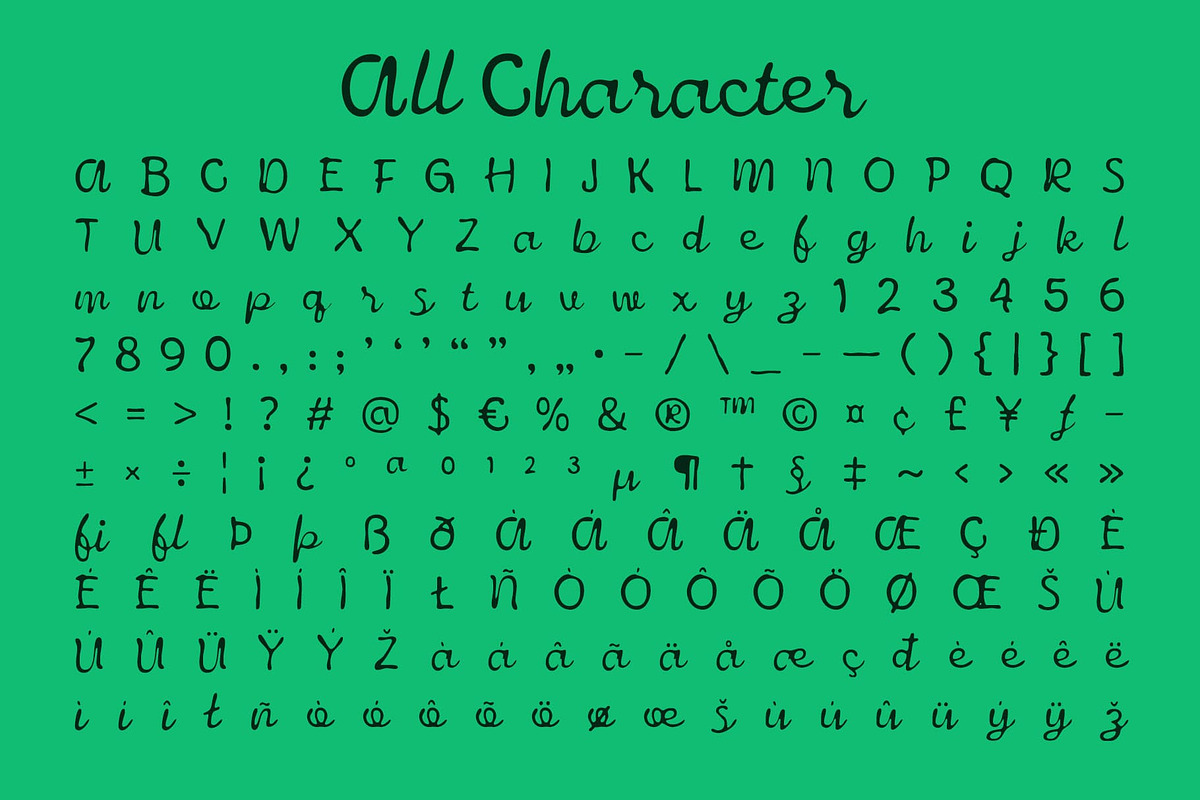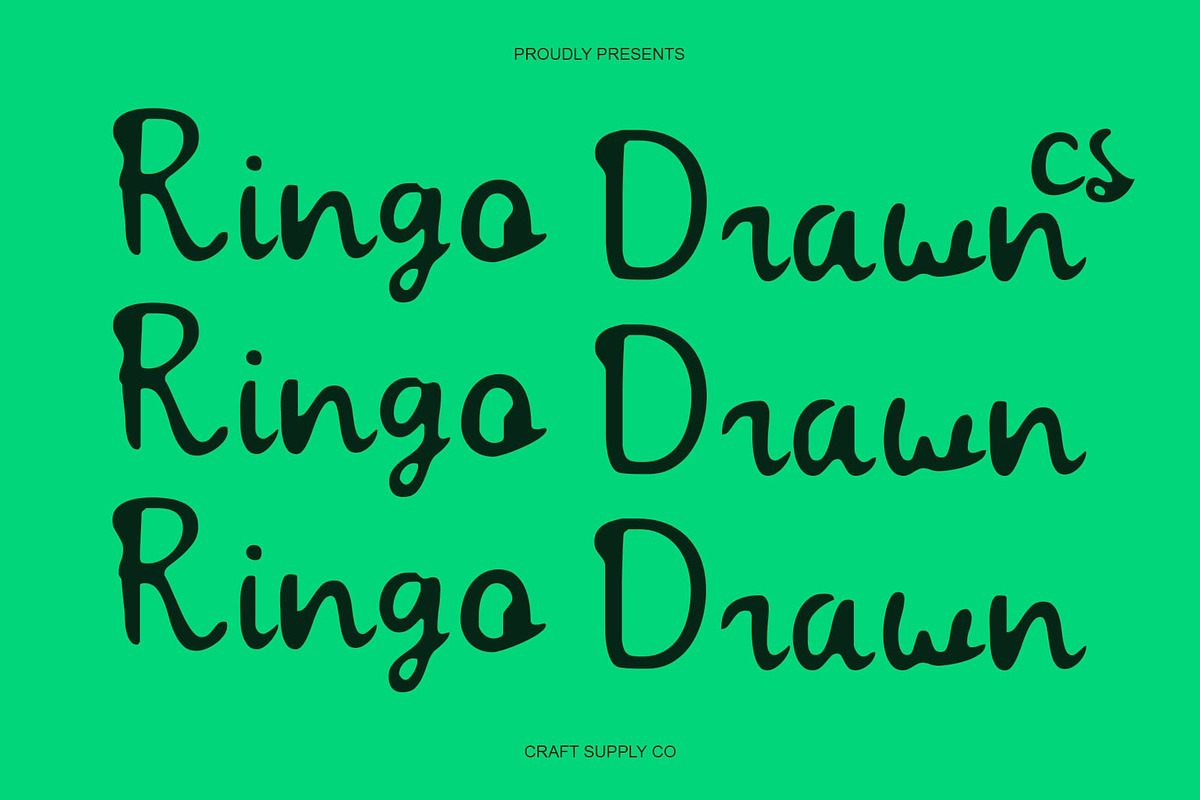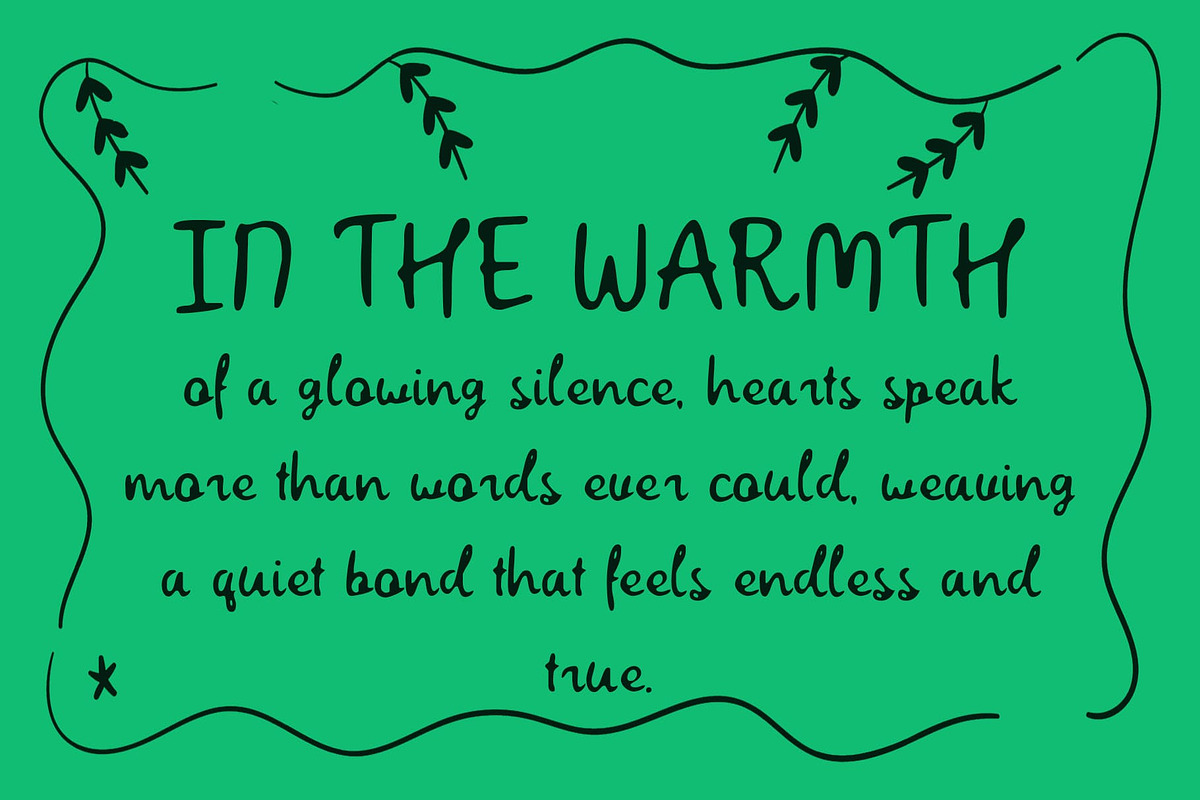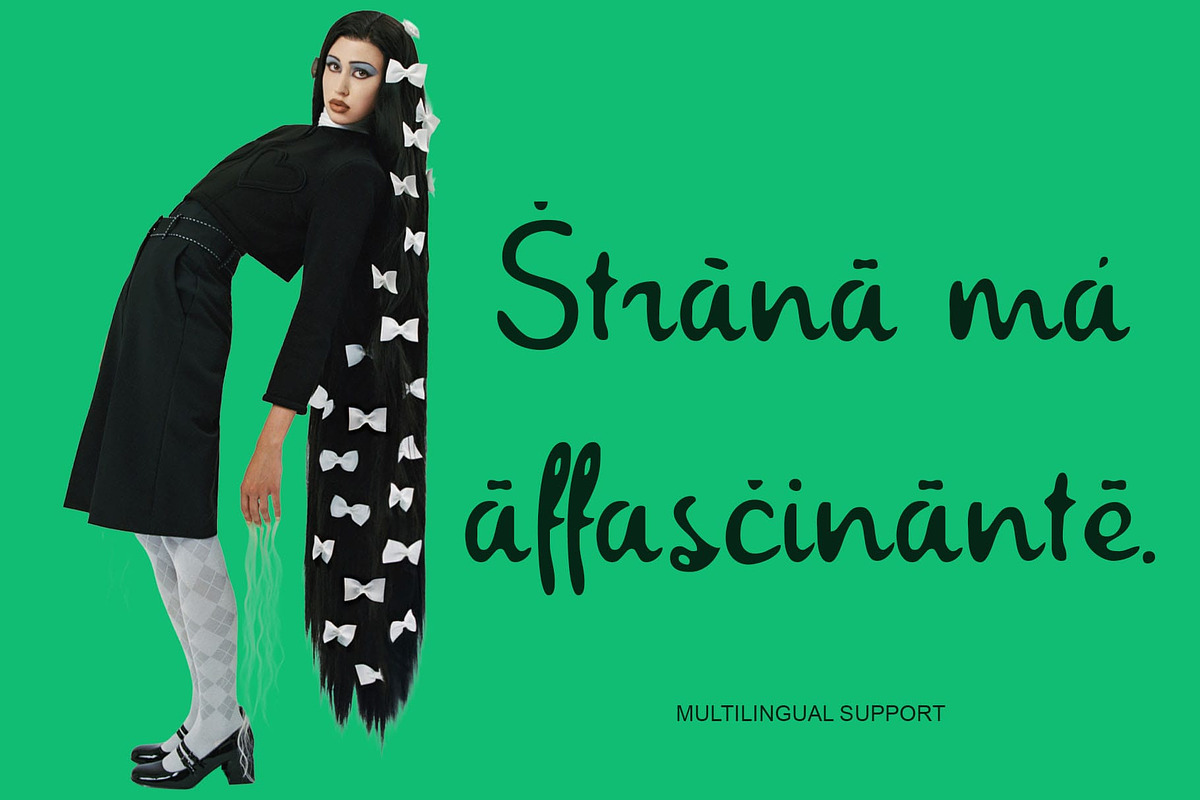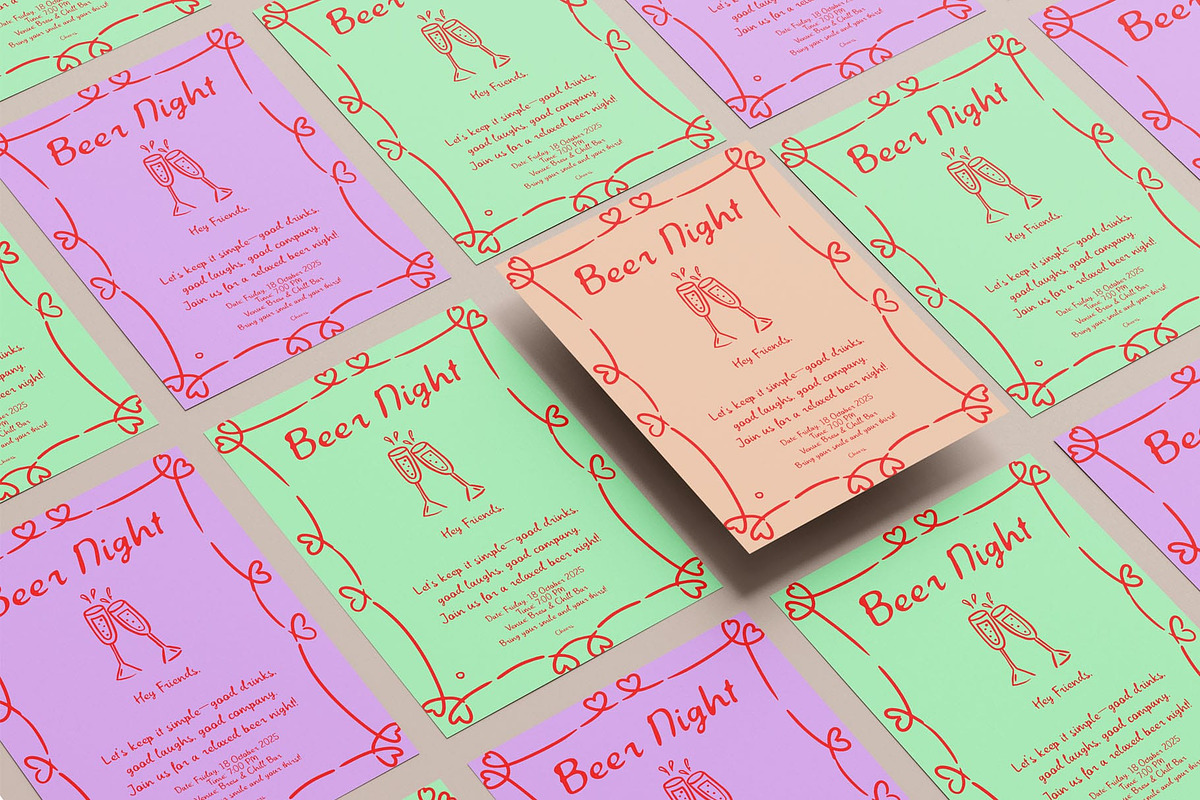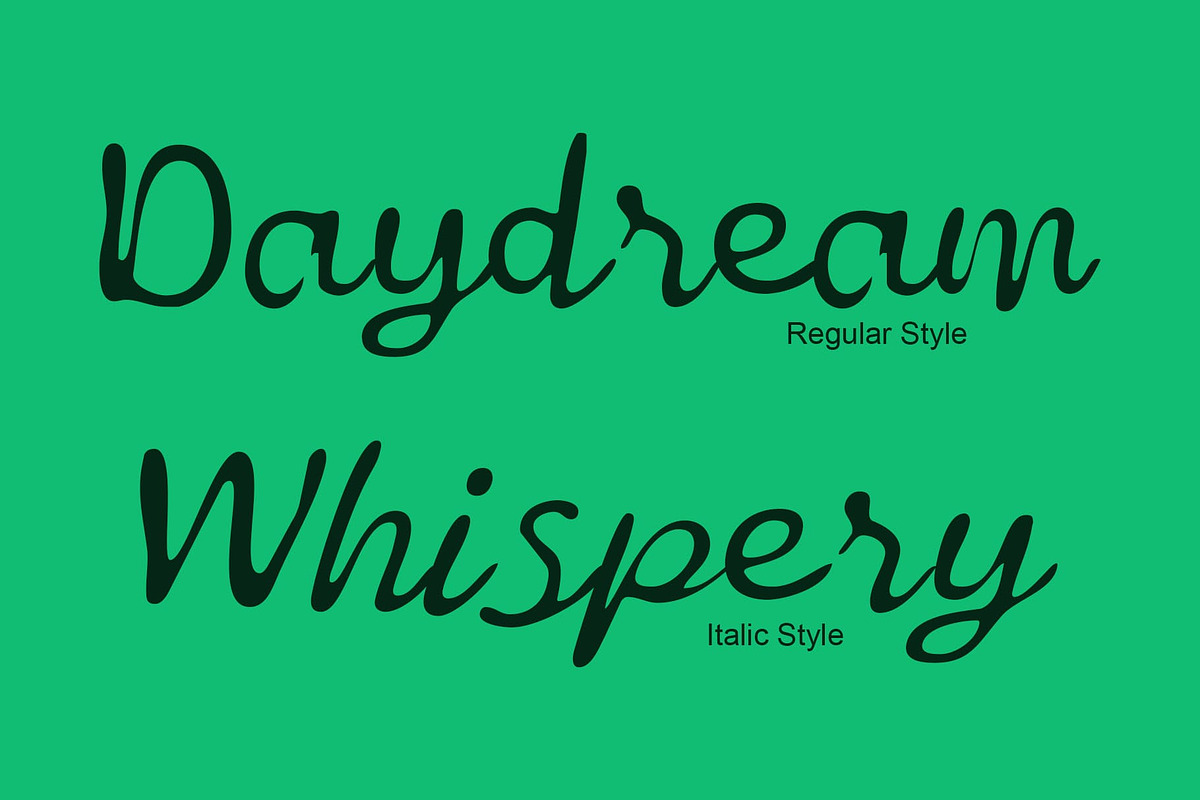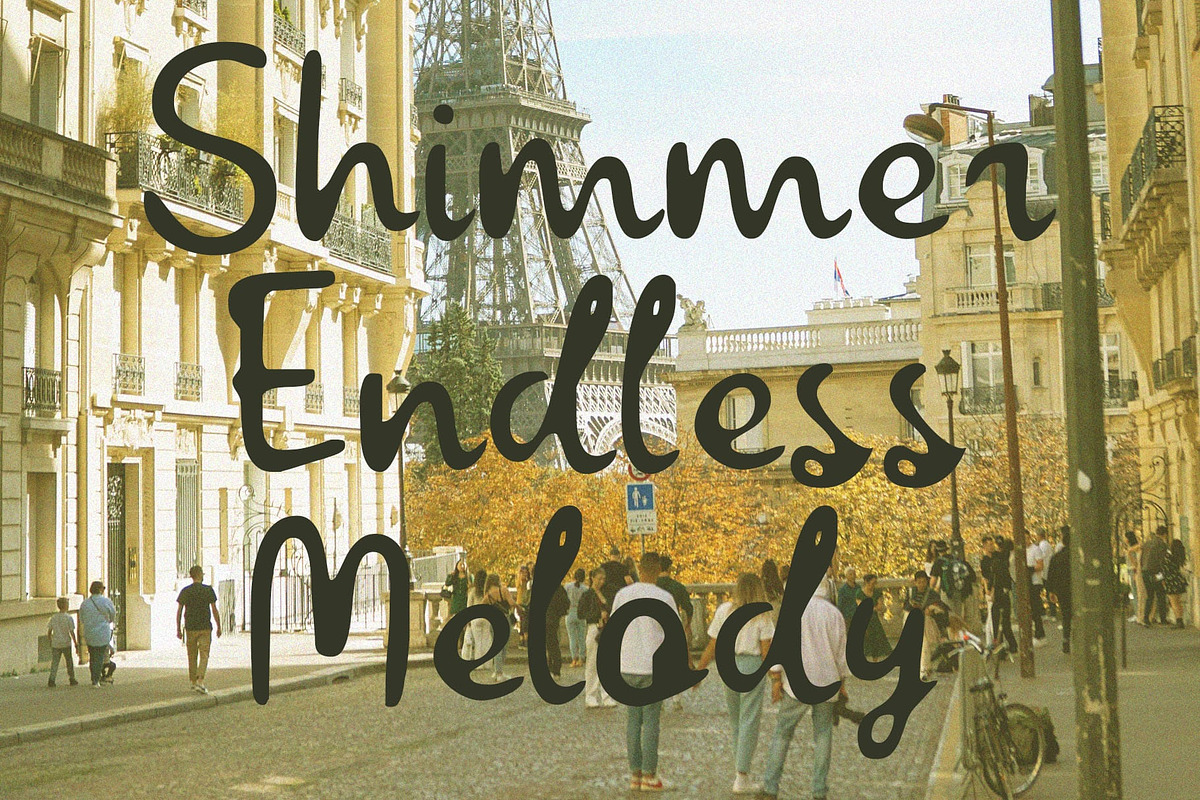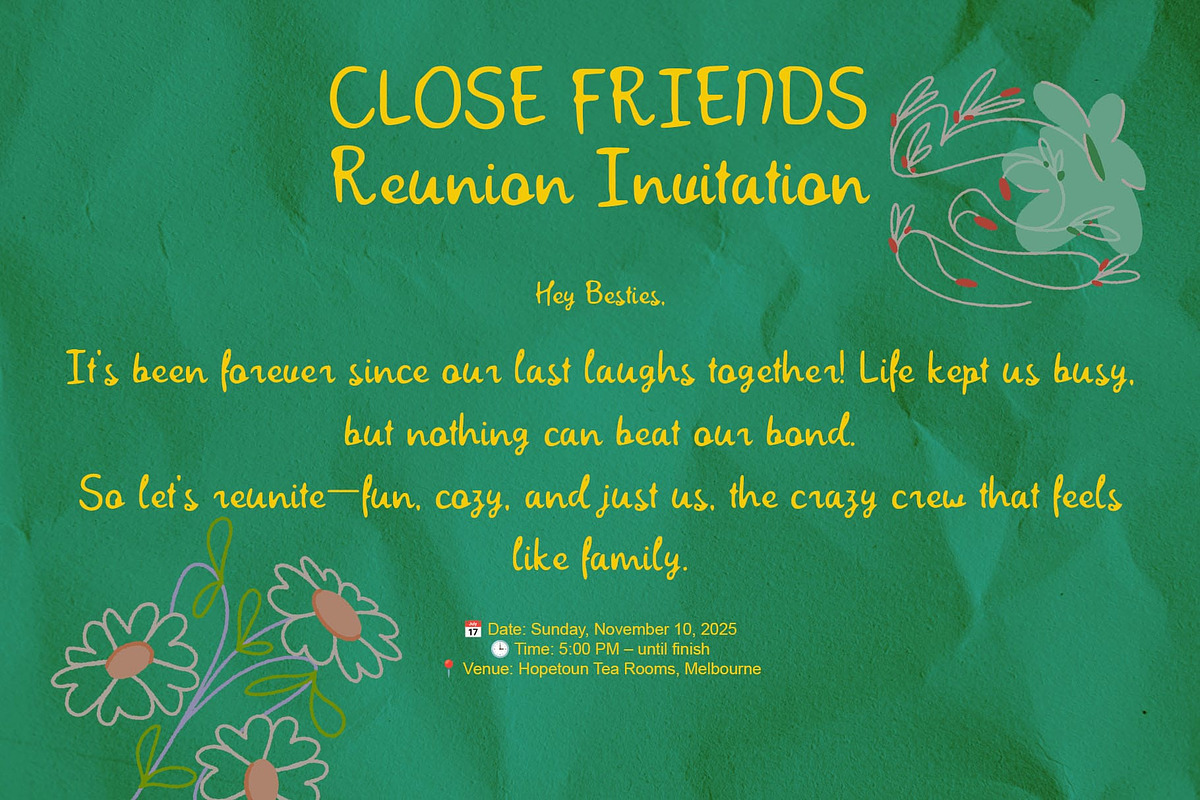
CS Ringo Drawn
CS Ringo Drawn – Italian Script with Drawn Texture: Where Romance Meets Handcrafted Beauty
Mediterranean Elegance in Motion This is an Italian script font designed to capture the effortless charm of Mediterranean calligraphy. Its flowing strokes and graceful rhythm bring a sense of romance and refinement to any project. With a natural sense of style, the font evokes sophistication while remaining approachable and versatile.
Hand-Drawn Texture for Warmth and Personality What makes this font unique is its hand-drawn texture. This artisanal touch softens the structure of the script, adding warmth, friendliness, and individuality. The drawn detailing makes the letters feel alive and expressive, ensuring that designs carry both elegance and authenticity.
Perfect for Celebrations and Luxury Branding this font is an ideal choice for wedding invitations, luxury packaging, and branding that calls for both beauty. Its romantic curves paired with hand-drawn details give every word a personal and meaningful feel. Whether used for a festive party theme or a refined editorial layout, it brings modern sophistication with a human touch.
Versatile for Creative and Professional Use Beyond its romantic appeal, this font offers flexibility for a wide range of design applications. From logos and posters to fashion branding and upscale stationery, it seamlessly adapts to projects that need to combine elegance with individuality. Its balance of Mediterranean flair and handcrafted artistry makes it a timeless script font for designers.